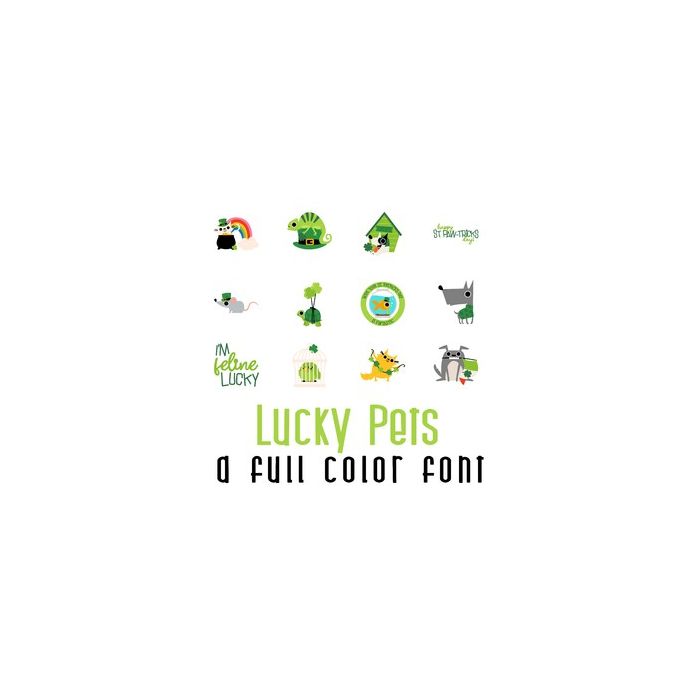
This adorable full-color doodlebat font 26 St. Patricks themed pets perfect for cards, crafts, gifts, decor, planner stickers, scrapbook pages and more!